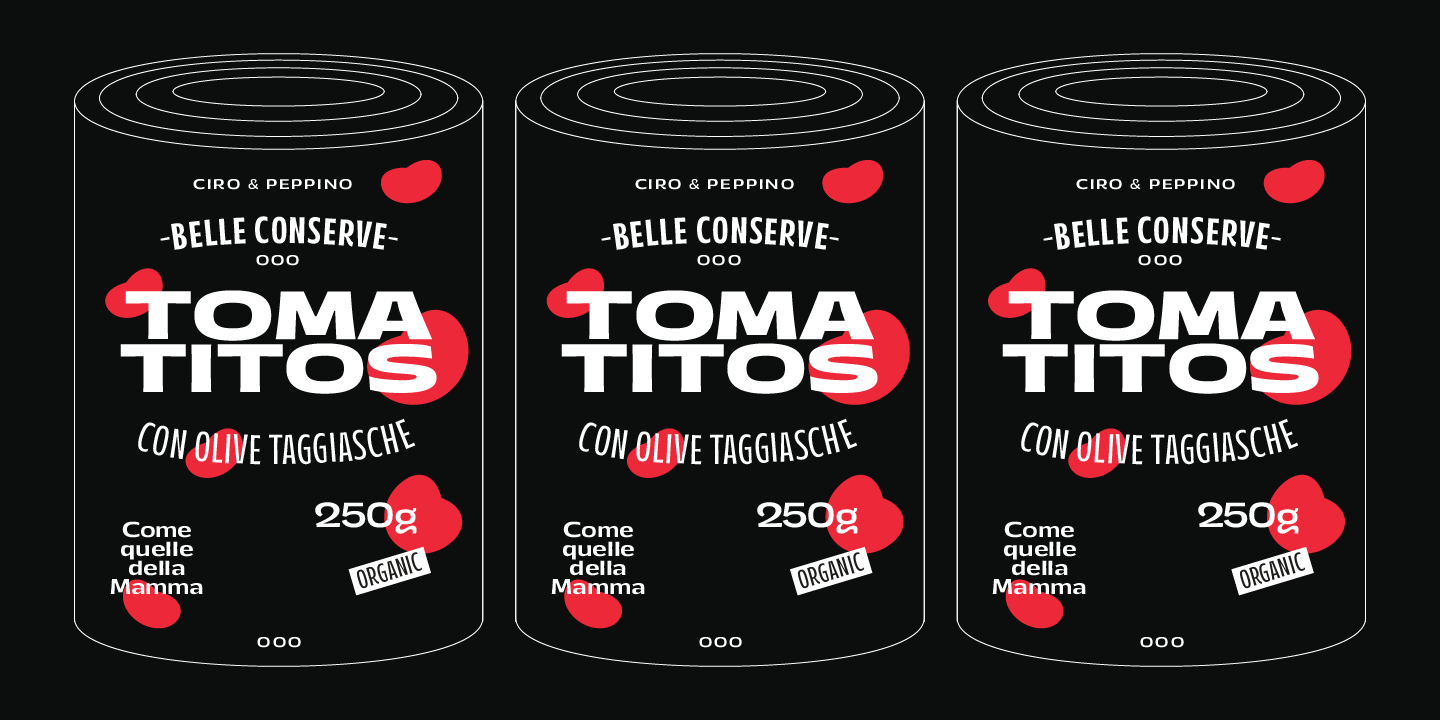
Annuario Font excels in annual report designs, yearbook layouts, commemoration materials, corporate timeline presentations, milestone celebration graphics, anniversary event programs, institutional directory covers, and archival document displays. Its commemorative character makes it perfect for projects celebrating achievements and marking significant yearly milestones.
What makes Annuario Font exciting is its distinguished ability to capture the essence of annual reflection and milestone celebration through elegantly structured letterforms that embody the dignity of recorded history. The ceremonial construction features refined proportions with archival quality that suggests permanence and institutional significance. This typeface embodies commemorative excellence and temporal importance, making every design feel historically significant and ceremonially dignified.
Annuario Font family includes Regular, Bold, Light, Italic, Archive, and Memorial variations, offering designers comprehensive tools for creating distinguished anniversary-themed typographic compositions that honor institutional heritage.
Commemorate exceptional achievements with the distinguished elegance of Annuario Font Free Download. This prestigious typeface brings ceremonial significance to any design project, whether you're developing materials for institutional celebrations, crafting promotional content for anniversary events, or designing publications marking important milestones. The font's anniversary-inspired architecture and commemorative presence make it essential for projects requiring ceremonial dignity. Annuario Font perfectly captures the essence of milestone celebration while ensuring optimal readability across all commemorative applications. Its distinguished character forms and heritage-inspired design language make it ideal for organizations seeking to communicate institutional excellence and historical significance, delivering memorable results that honor achievements and create lasting records of important anniversaries, milestones, and the continuing legacy of institutional success and community impact.